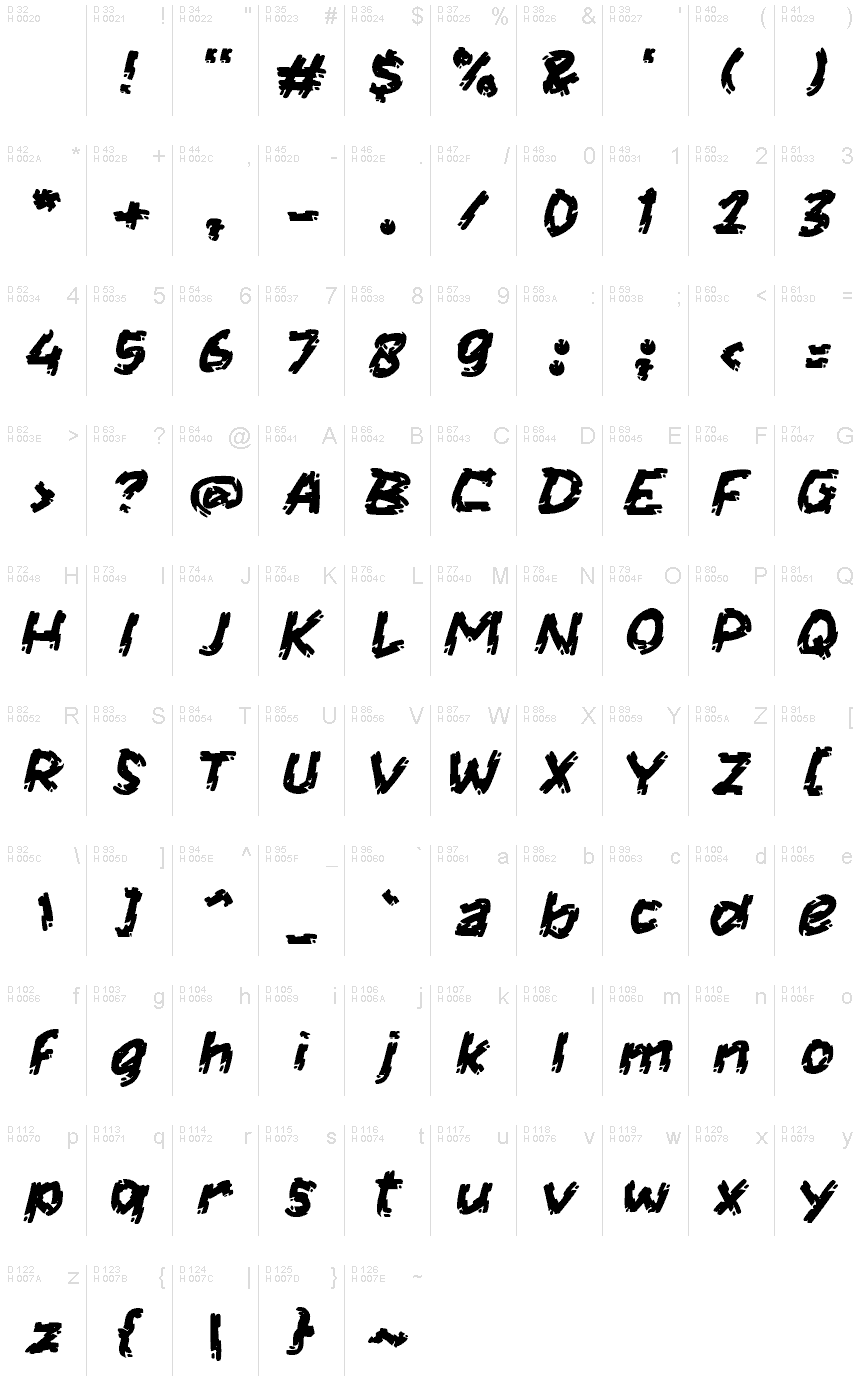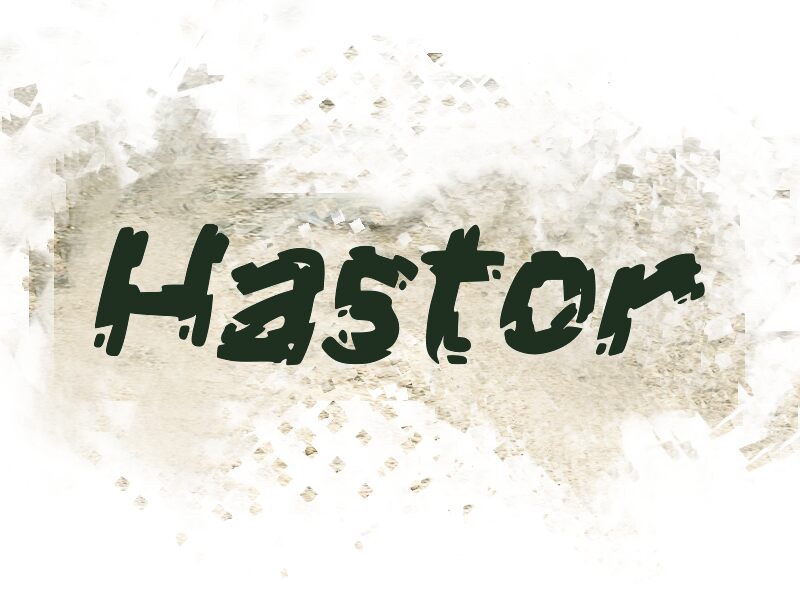
Hastor
Hastor font by wep is a bold distorted display font for grunge-inspired projects. The designer’s inspiration goes way beyond typography and the text itself to actually be the real art this time around. Its urban, impactful, and expressive design will get you thinking about so many innovative design ideas for which to use it.
The free edited font is mainly appropriate for print media such as poster designs, flyers, magazines etc. Use it to create immaculate packaging product labels or branding purposes. Distressed digital graphics and visuals for social media posts are also areas where this typeface would look cool in!